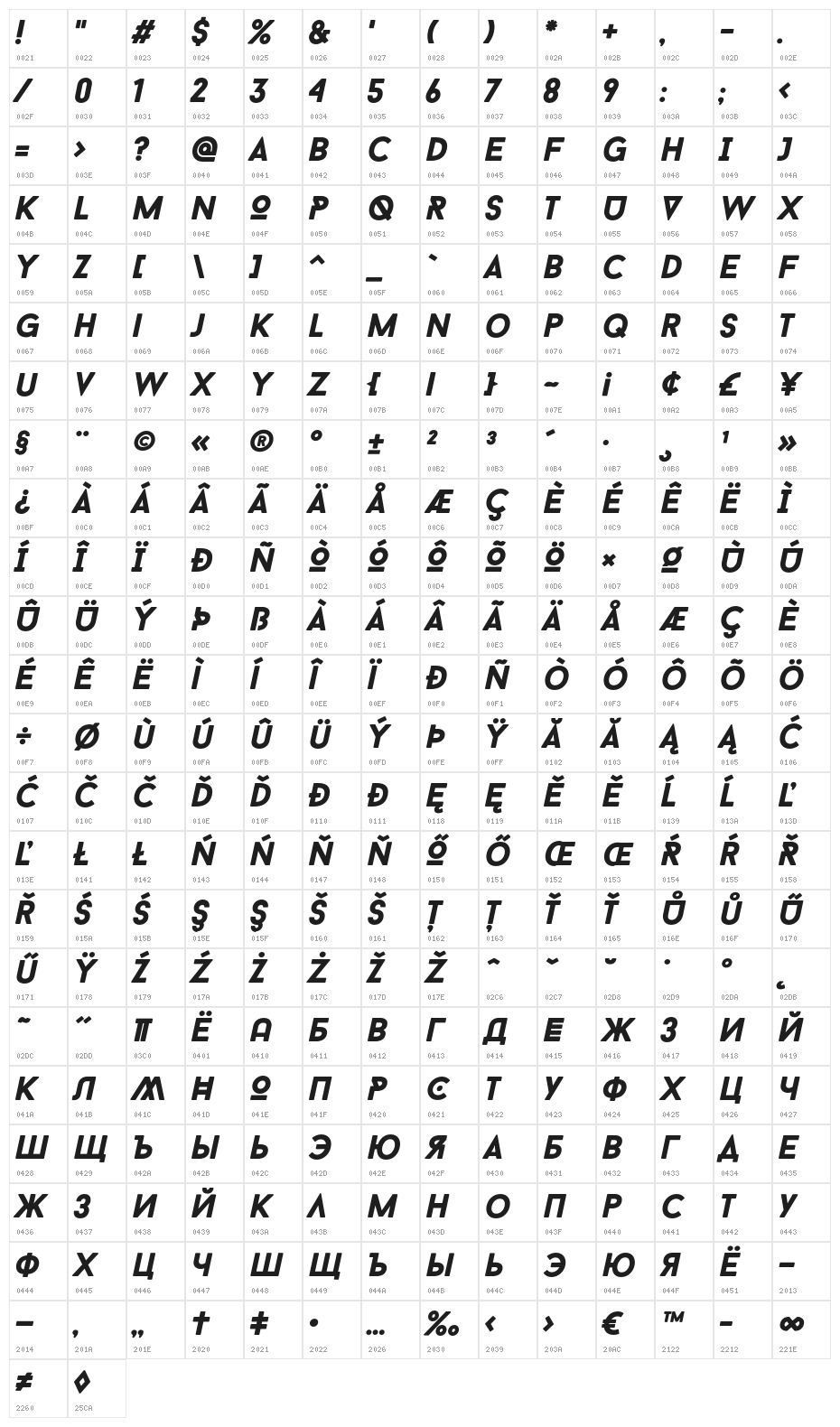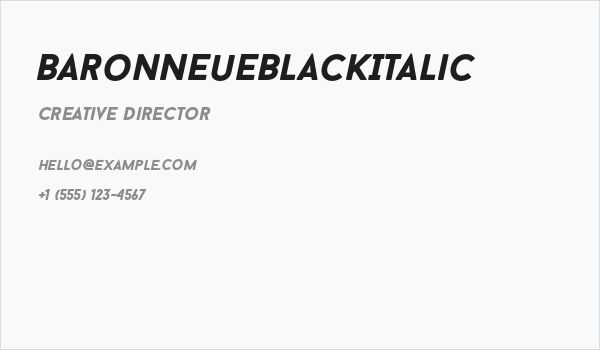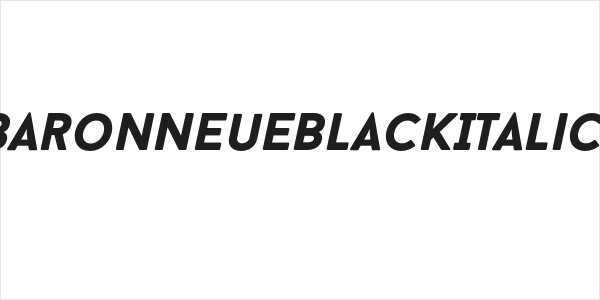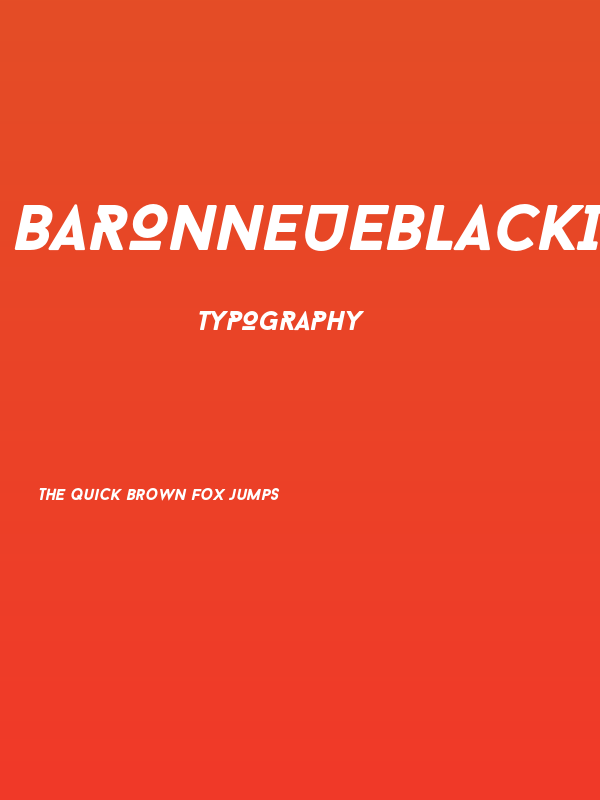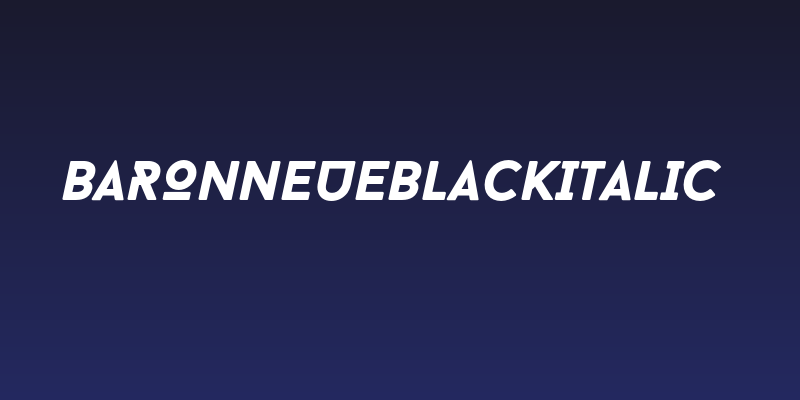
BaronNeueBlackItalic Font
BaronNeueBlackItalic Description
This font features a bold and italicized style with a modern and sleek appearance. The characters are designed with a strong emphasis on geometric shapes, giving them a contemporary and dynamic look. The uppercase letters are particularly striking, with a consistent slant that adds a sense of motion and energy. The numerals and special characters maintain the same boldness and italicization, ensuring uniformity across all glyphs. This font is ideal for making a statement, with its high contrast and impactful presence.